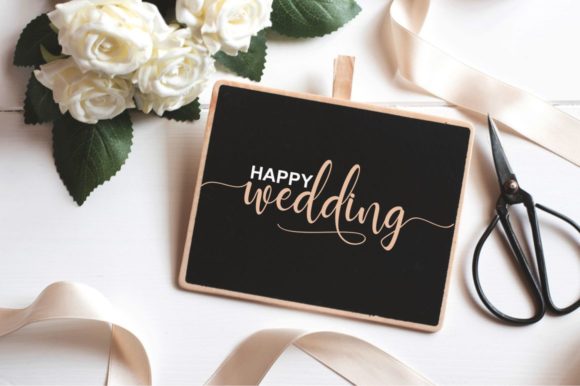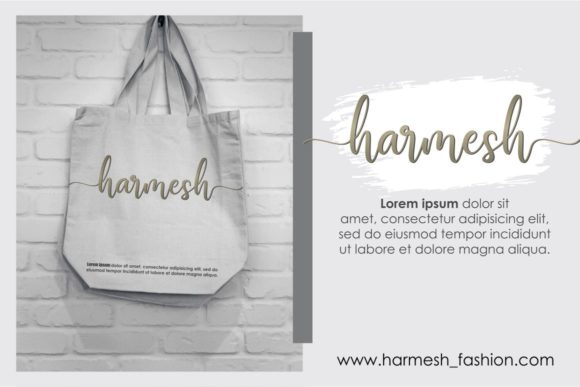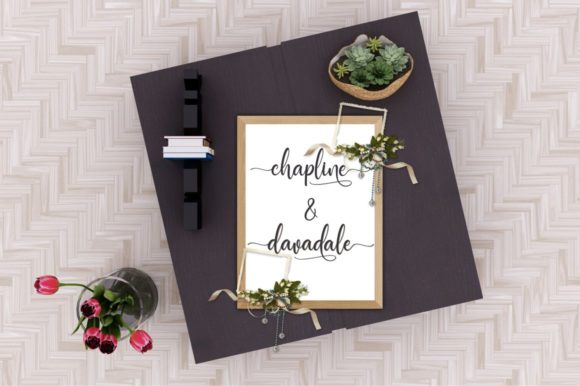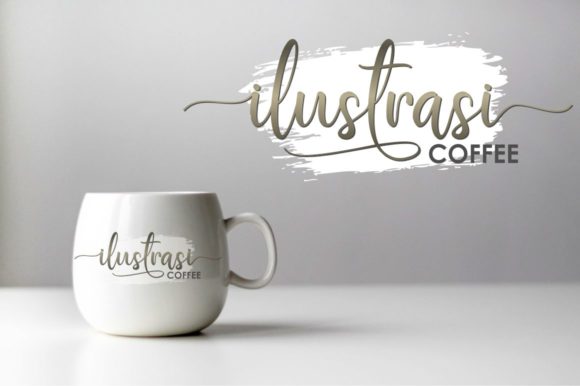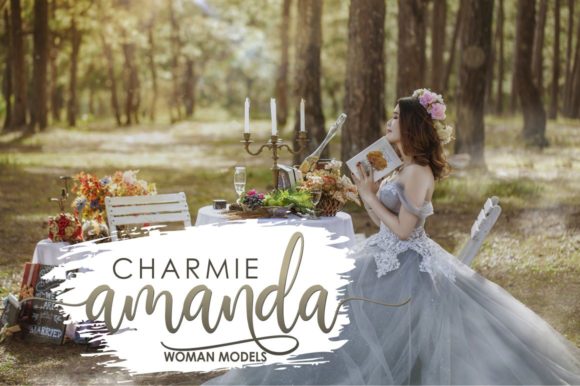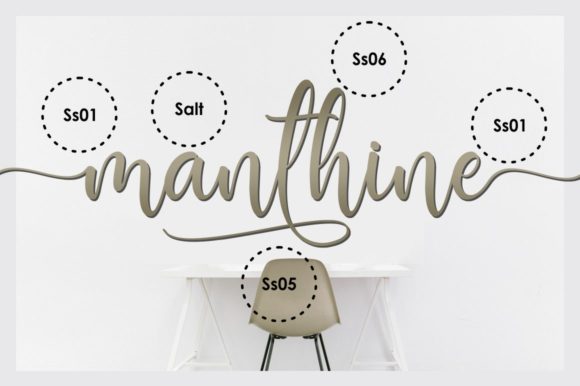
Introduction to Manthine Font
Have you ever been working on a creative project and suddenly, a single element stands out and elevates the entire design? For designers, those ‘aha’ moments are what make our job so rewarding. One such moment for many is discovering the perfect font to match their vision. That’s exactly what the Manthine Font offers – a beautiful script that effortlessly combines elegance and casual charm.
As a valuable design resource, the Manthine Font is a game-changer for creatives working on high-quality projects. Its versatility makes it perfect for various applications, from logos and branding to typography and graphics. With its transparent background, it’s easy to integrate into any design without overpowering the other elements. And the best part? It’s available for free download, making it an accessible and exciting addition to your design arsenal.
- Unique, modern design with a transparent background, allowing for seamless integration
- Large character set with a range of styles and weights to suit various creative needs
- High-resolution design, suitable for use in print and digital applications
- Perfect for designers seeking a modern, high-quality font for their next creative project
Honest Review: Manthine Font
I recently had the opportunity to work with the Manthine Font, and I must say it’s been a great addition to my design resource library. As a designer, I’m always on the lookout for high-quality fonts that can elevate my creative projects. The Manthine Font definitely delivers.
- ✨ Clean and modern design: The Manthine Font has a sleek and sophisticated look that works perfectly for a variety of design applications.
- ✨ Versatile: The font is highly versatile and can be used for both headings and body text, making it a great all-around choice.
- ⚠️ Limited language support: The Manthine Font only supports a limited range of languages, which may be a drawback for designers who need to work with multiple languages.
- ⚠️ No transparent background: The font does not come with a transparent background option, which may be a limitation for designers who need to use it on images with complex backgrounds.
Overall, I’m impressed with the Manthine Font and would definitely recommend it to designers looking for a high-quality, free design resource. While it may have a few limitations, its clean design and versatility make it a great choice for a variety of creative projects.
The Manthine Font is a high-quality design resource ideal for creative projects. It offers a unique and stylish look that can elevate your work. This guide will walk you through how to use the Manthine Font in popular design platforms.
The Manthine Font is commonly used for creative projects such as graphic design, digital art, and typography. It is ideal for designers who want to add a touch of elegance and sophistication to their work.